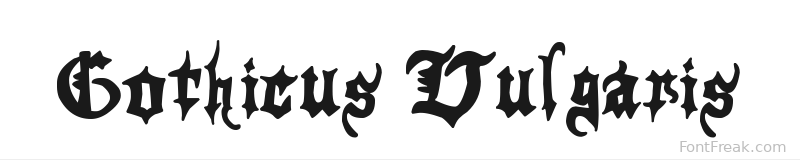
Gothicus Vulgaris
About Gothicus Vulgaris
Gothicus Vulgaris by woodcutter Manero is a striking display font that captures the essence of Gothic design with its ornate and dramatic letterforms. This font belongs to the decorative category, perfect for projects that require a touch of medieval flair. The visual characteristics of Gothicus Vulgaris are highlighted by its bold stroke weight, dynamic contrast, and intricate decorative elements that evoke a sense of history and artistry. The spacing between letters is thoughtfully designed, allowing for easy readability while maintaining a unique aesthetic that stands out in any application.
Ideal for a variety of use cases, Gothicus Vulgaris shines in settings such as wedding invitations, where its elegant style can enhance the romantic theme. It is equally suited for movie posters, particularly in genres like horror or fantasy, adding an atmospheric touch that draws the viewer in. Restaurant menus can benefit from this font's distinctive look, creating an inviting and memorable dining experience. Additionally, content creators will find this font perfect for social media graphics and branding, as it conveys a sense of creativity and elegance.
Targeting graphic designers, small business owners, and content creators alike, Gothicus Vulgaris offers versatility and uniqueness that can elevate any project. The font's aesthetic resonates with those looking to make a bold statement, making it a valuable addition to any designer's toolkit.